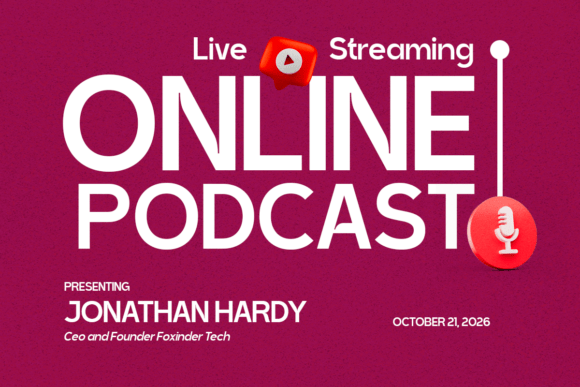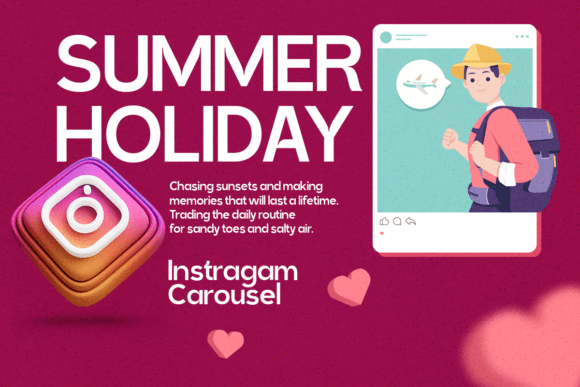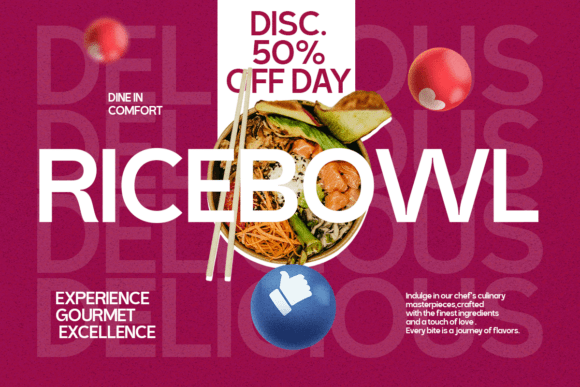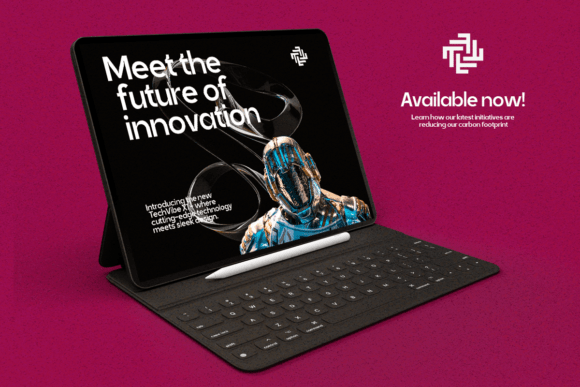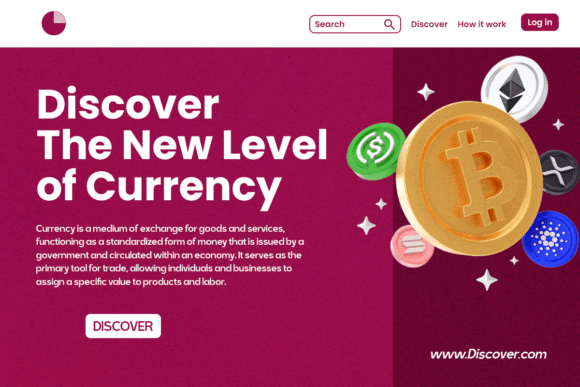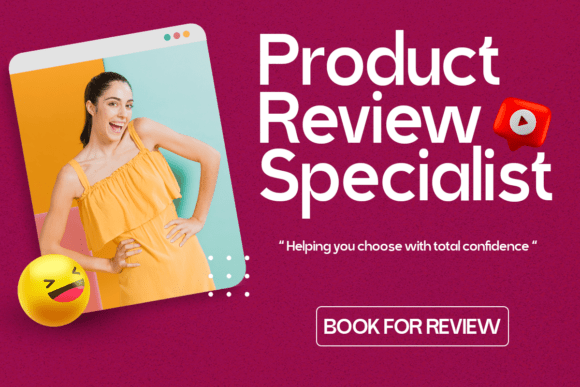
Introduction to Mortane Font
Mortane is a bold modern font designed to deliver strong visual impact with clean geometric precision.
Ideal for modern branding, startup identity, tech campaigns, website headers, posters, social media graphics, advertising materials, packaging design, editorial layouts, and digital marketing visuals Mortaneโs clean yet powerful character allows designers to create strong visual hierarchy and modern compositions effortlessly.
Mortane Font offers exceptional quality and versatility, making it a valuable addition to your design toolkit. Whether you’re creating for personal projects or commercial use, Mortane Font delivers professional results.